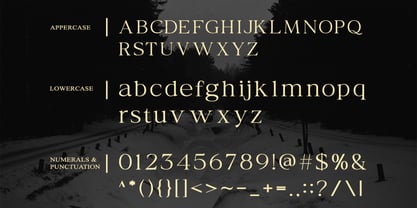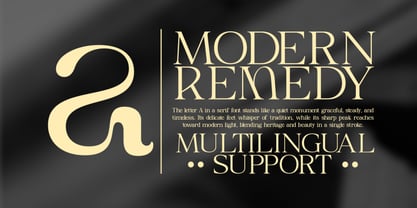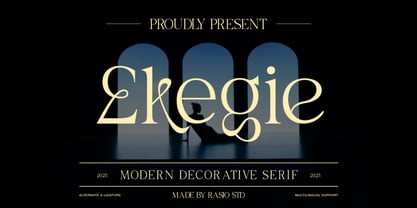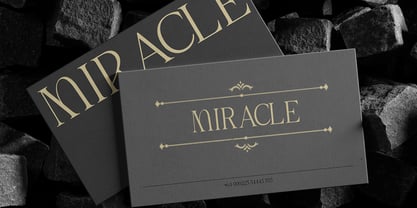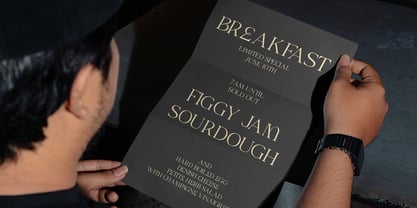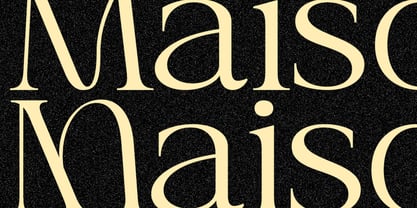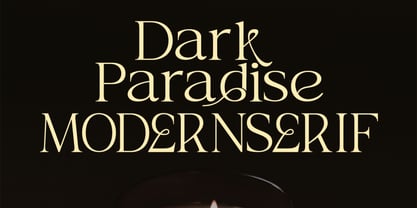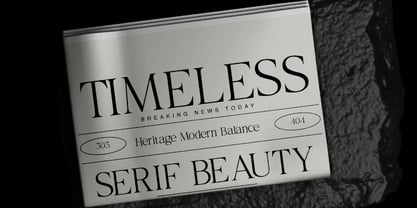
Ekegie
by Rasio Studio
The Ekegie Font Family was designed by Fajar Indra and published by Rasio Studio. Ekegie contains 1 styles. More about this family
Ekegie is a sophisticated modern decorative serif typeface with a uniquely artistic touch. Designed to evoke elegance and individuality, Ekegie stands out with graceful curves, expressive ligatures, and stylish alternates that create a refined yet contemporary feel. It supports multilingual characters and is perfect for branding, luxury packaging, editorial designs, and visual identities that need a dramatic and distinguished voice. Ekegie is a perfect fit for high-end branding, fashion editorials, luxury product packaging, and artistic visual design projects. Its decorative flair and carefully crafted ligatures bring sophistication to any composition. Use it where personality, class, and elegance are required from social media graphics to upscale wedding invitations or brand logos.
Designers: Fajar Indra
Foundry: Rasio Studio